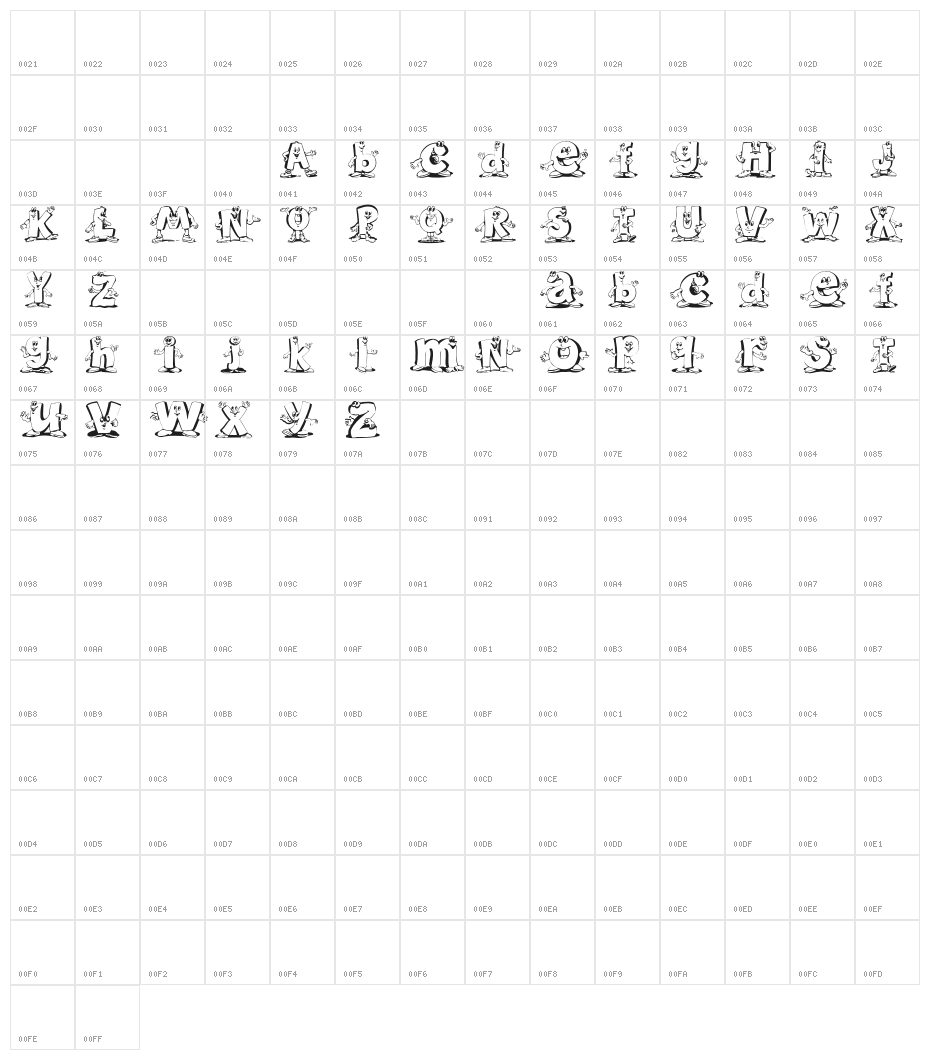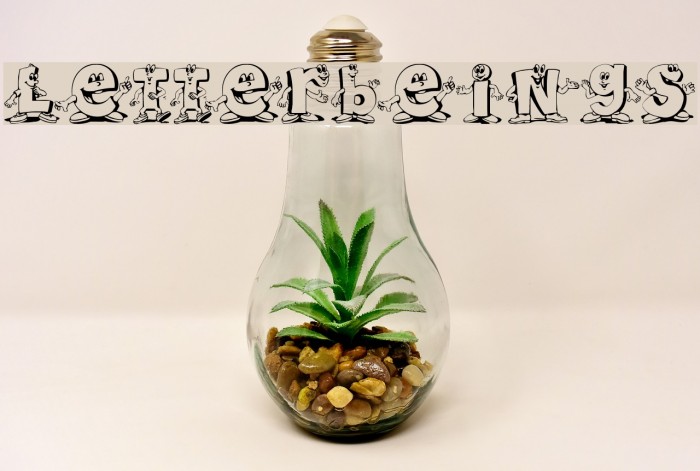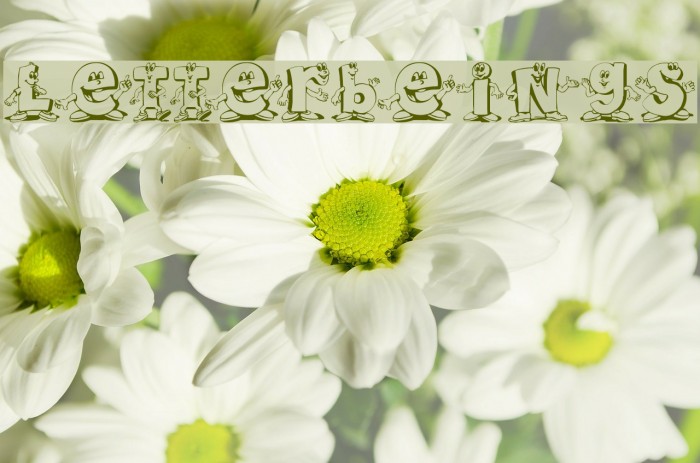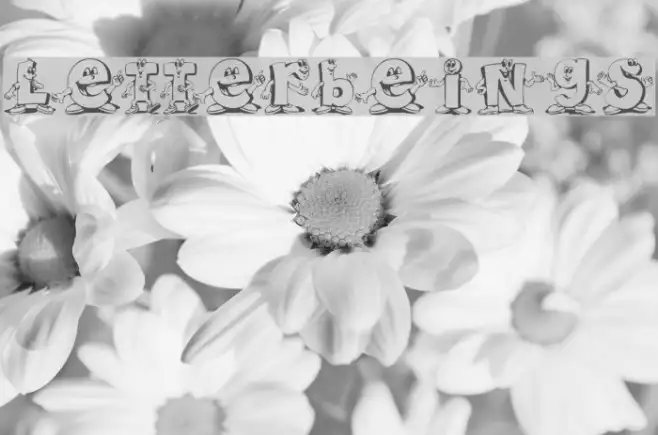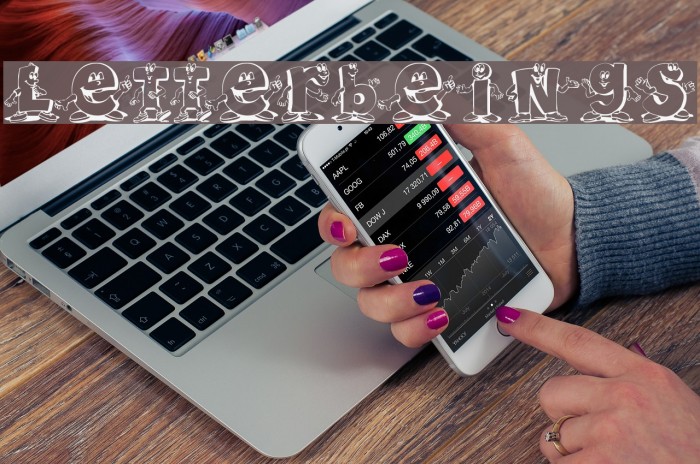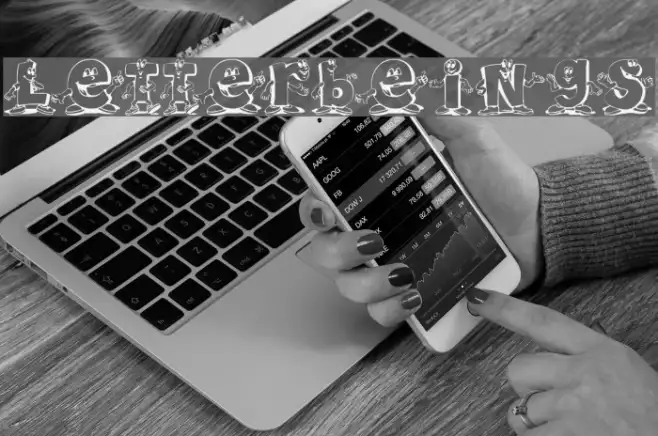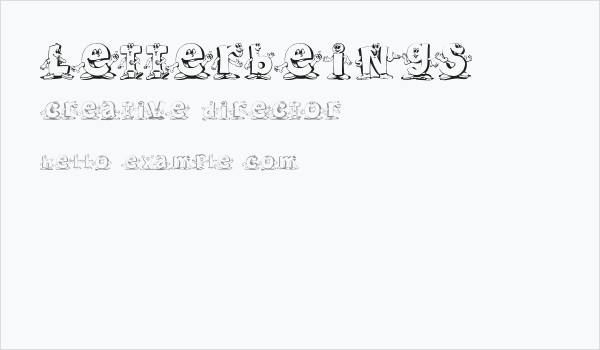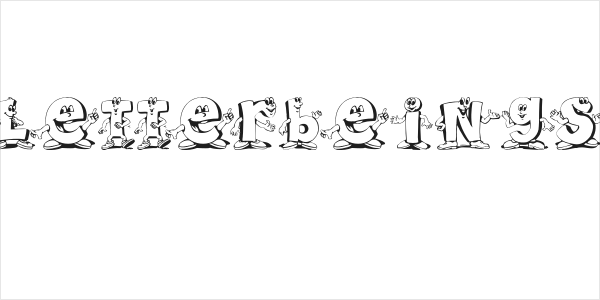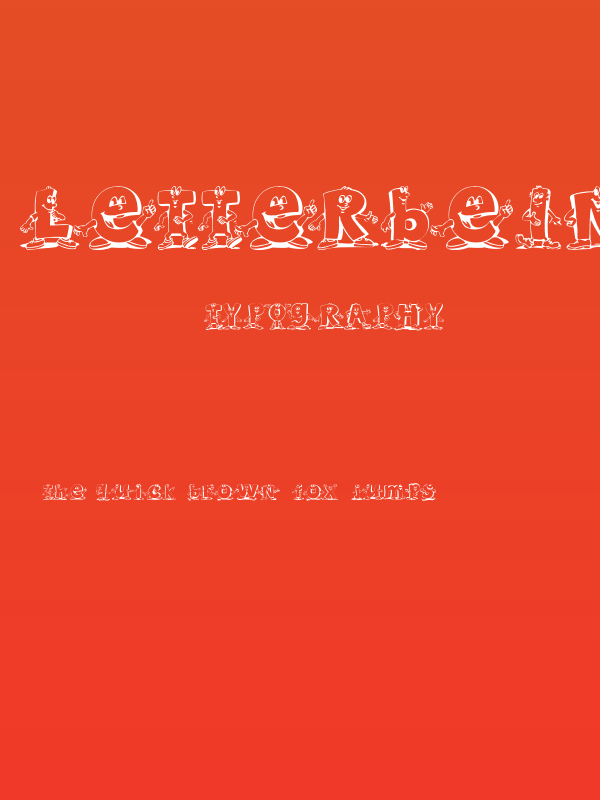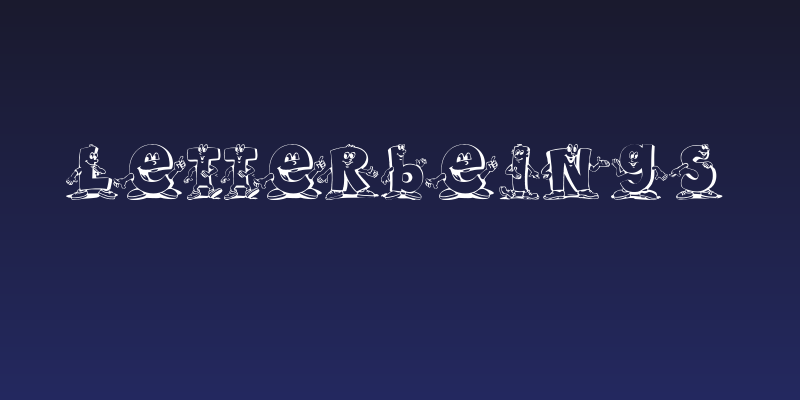
Letterbeings Font
Letterbeings Description
This playful and whimsical font features letters that are animated with cartoon-like characters. Each character is integrated into the letterforms, giving them a lively and humorous appearance. The font is highly decorative, with each letter standing on a pair of cartoon feet and sporting expressive faces. The design is bold and eye-catching, making it suitable for projects that require a fun and engaging visual element. The characters are consistent in style, with a uniform thickness and a slightly rounded shape, adding to the friendly and approachable feel of the font.
| Proposed Projects | Ideal for children's books, playful branding, comic strips, and educational materials. |